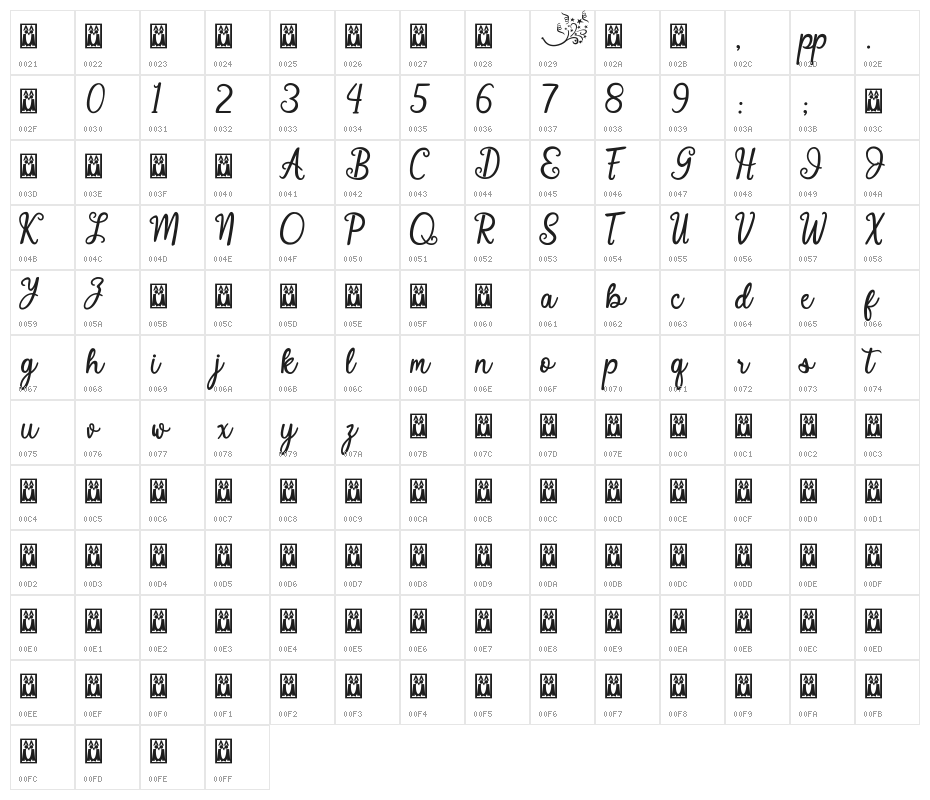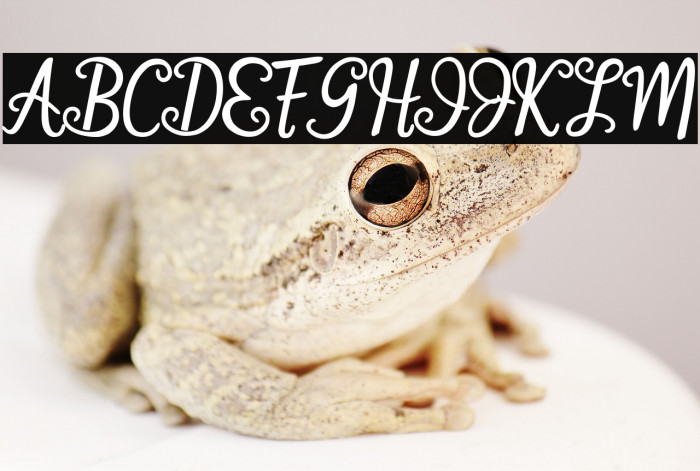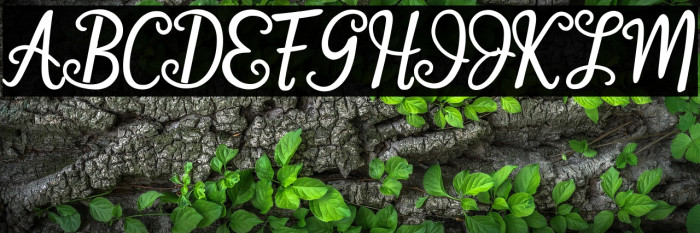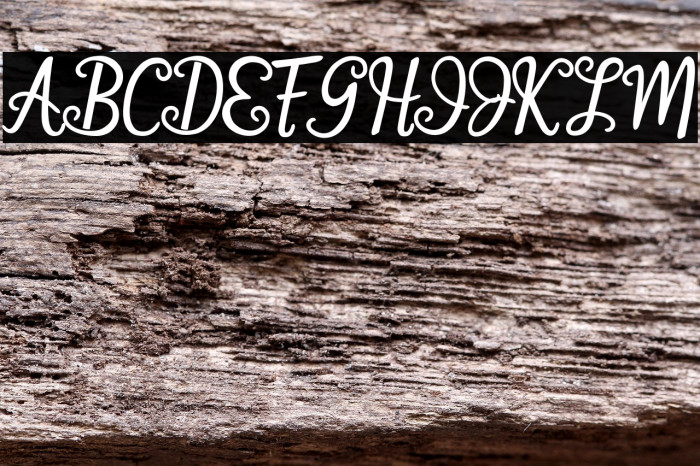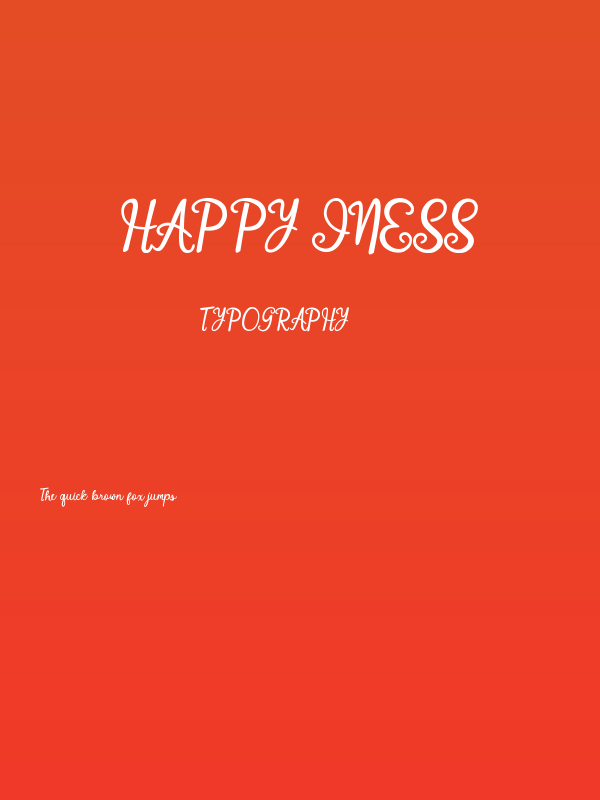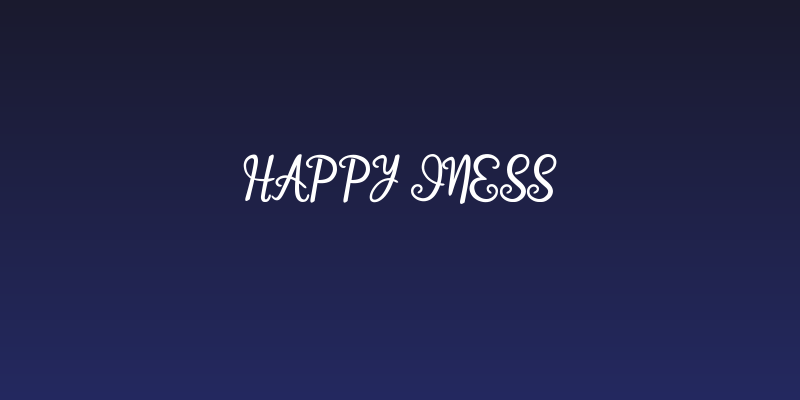
Happy Iness Font
Happy Iness Description
This font features a playful and elegant script style, characterized by its flowing, cursive letters. The uppercase letters are adorned with subtle flourishes, adding a touch of sophistication. The lowercase letters maintain a consistent, smooth flow, making them highly legible despite their decorative nature. The numerals are rounded and maintain the same playful style, ensuring consistency across all characters. Special characters like $, ?, &, %, !, #, *, and = are included, each designed to match the overall aesthetic. This font is ideal for projects that require a touch of elegance and creativity.